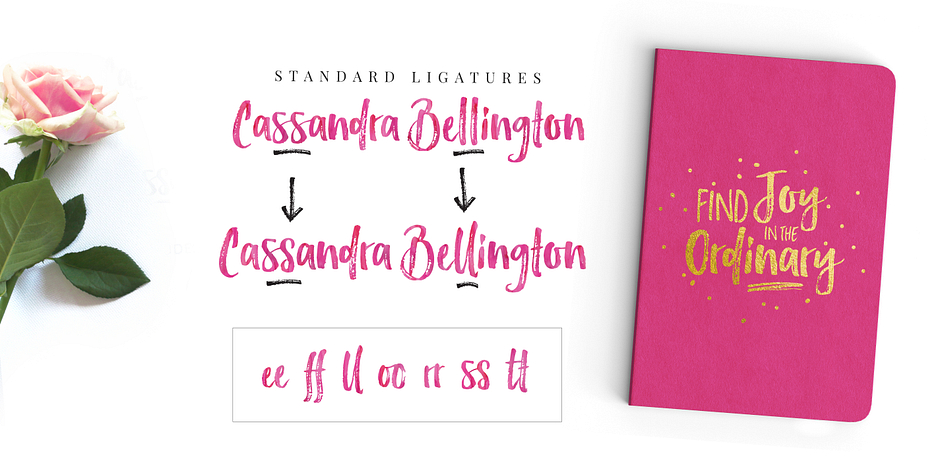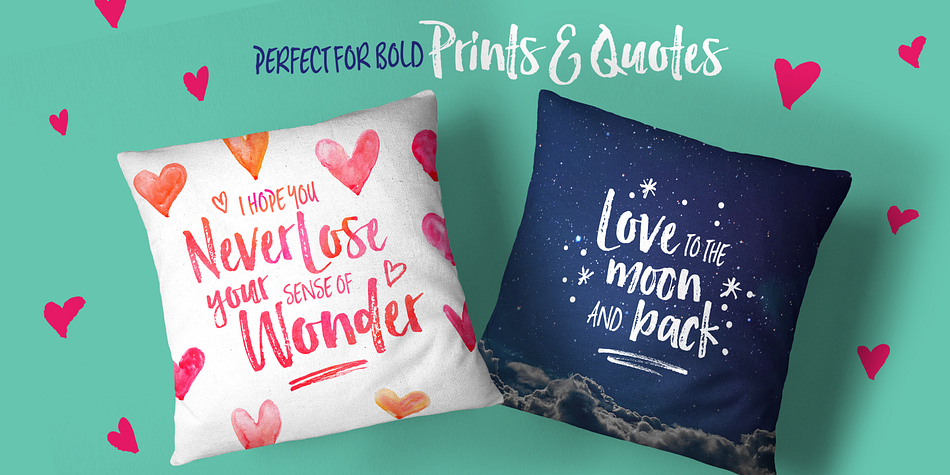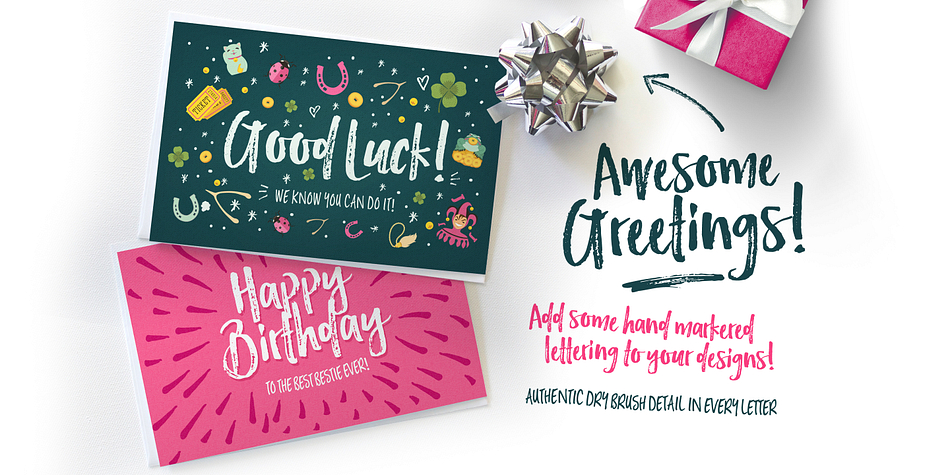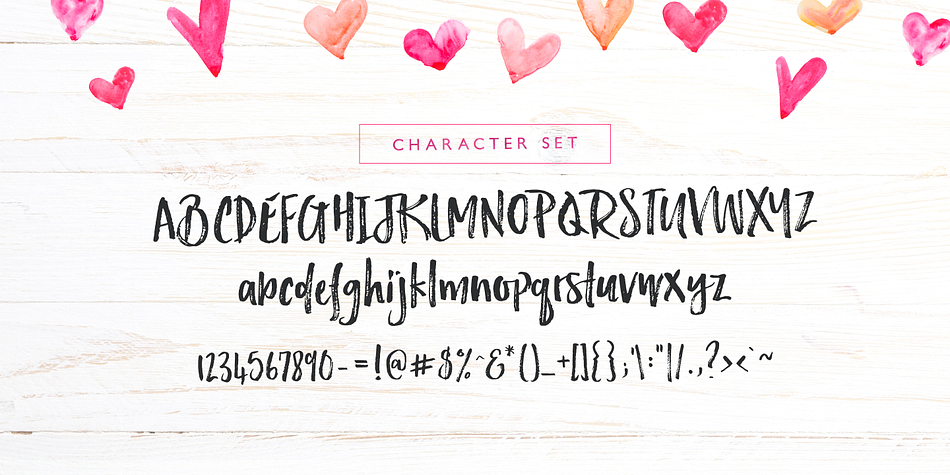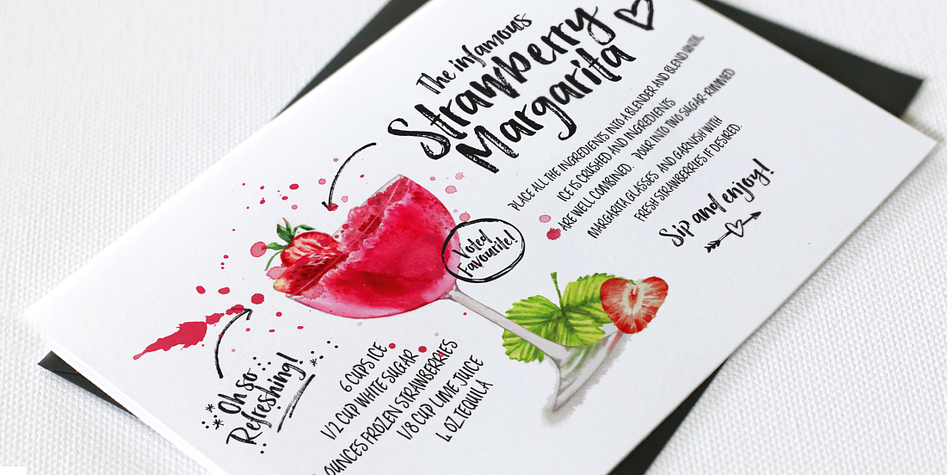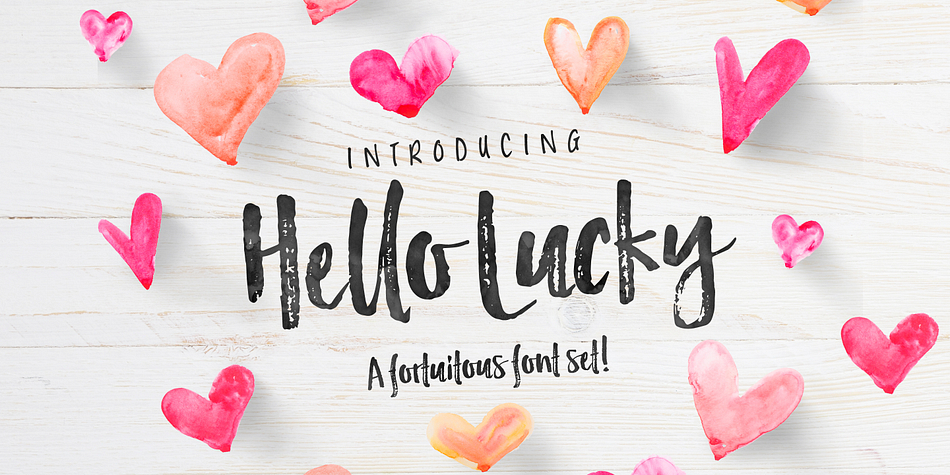
Designed by Nicky Laatz, Hello Lucky is a dingbat, hand drawn and brush script font family. This typeface has three styles and was published by Nicky Laatz.
A cheeky little dry marker font, with an inky complimentary font, and oodles of marker-made decorative ornaments.
Just type out your design , and then make it pop with the bonus font , and extra scribbles, doodles and rushed underlines from the ornaments font :)
On its own, or with the extras - Hello Lucky is bound to make a statement :)
Hello Lucky has standard ligatures included - to give the font a more natural, scripted look when you have any double letters in your design. It also has multilingual support with accented characters for international users.